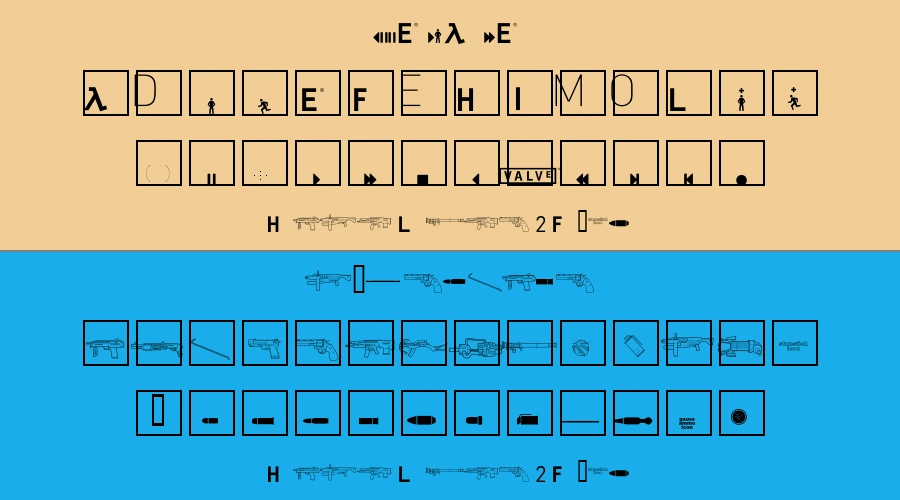
About Half Life 2 Font
Designed with precision, Half Life 2 Font merges flourished entries with uniqueness in every character. This versatility makes it particularly effective for heritage brands, where expressiveness and technical excellence directly impact communication quality. Each letterform demonstrates meticulous craftsmanship.
Technical excellence shines through elements like balanced proportions and lining figures, enhancing typographic versatility. In product names settings, Half Life 2 Font proves its worth through superior compatibility. The thoughtful execution of terminal angle and standards alignment ensures professional results.